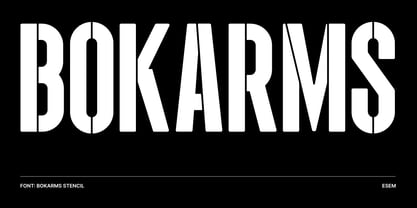
Bokarms Stencil
by ESEM Type
The Bokarms Stencil Font Family was designed by Szymon Mandziarz and published by ESEM Type. Bokarms Stencil contains 1 styles.
Bokarms stencil is a condensed font with a distinctive look Created for military-themed design.
Perfect for industrial projects. It will also work as a universal typeface for promotional poster designs, branding, logo design, and clothing branding.
Designers: Szymon Mandziarz
Publisher: ESEM Type
Foundry: ESEM Type
Design Owner: ESEM Type
About ESEM Type
An independent font foundry that was created out of passion for typography and creative needs. The founder and author is Szymon Mandziarz. The beginnings of letter design began many years ago with graffiti. The foundry focuses on the production of modern, unique typefaces with a clear form and details that attract attention. The font foundry aims at providing its customers with high quality fonts that stand out with their original style.